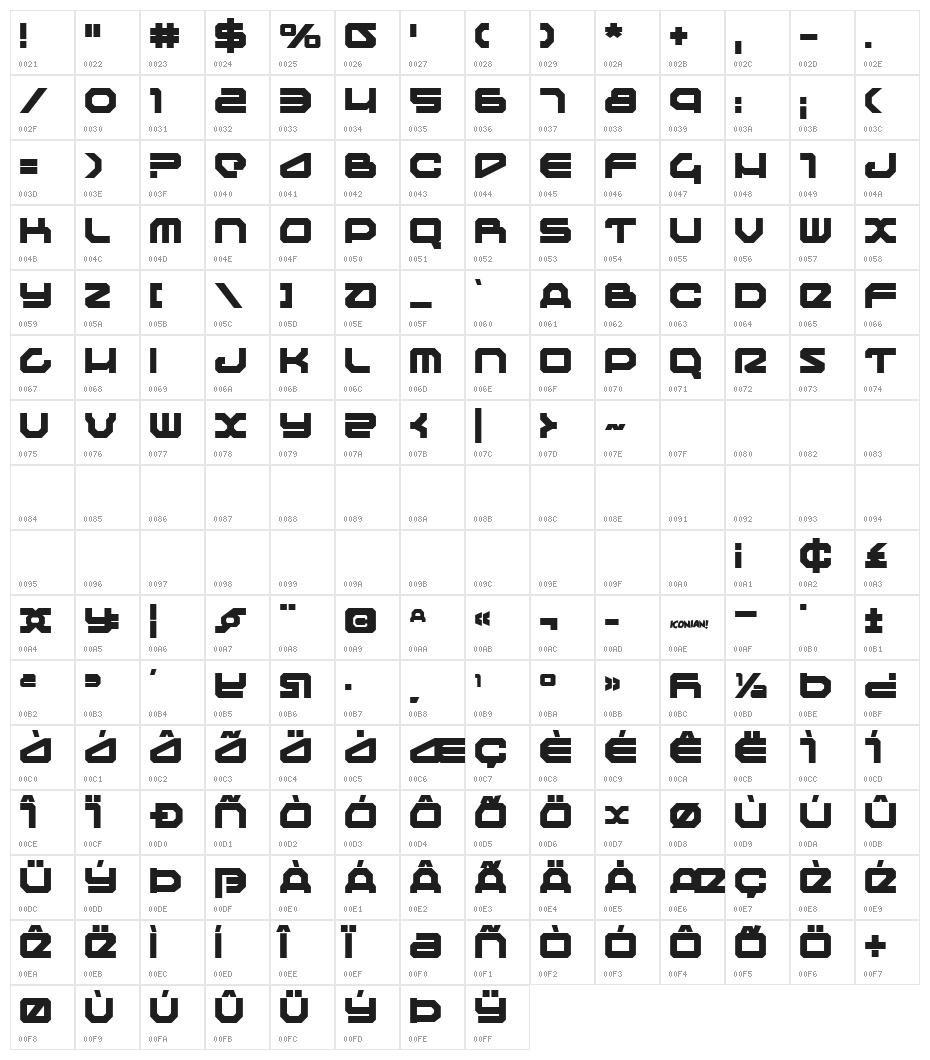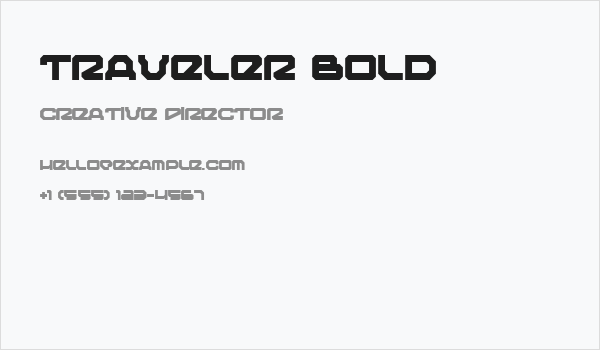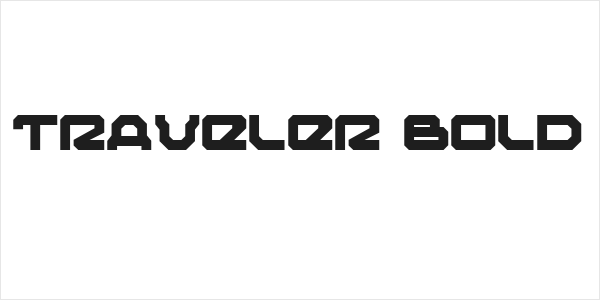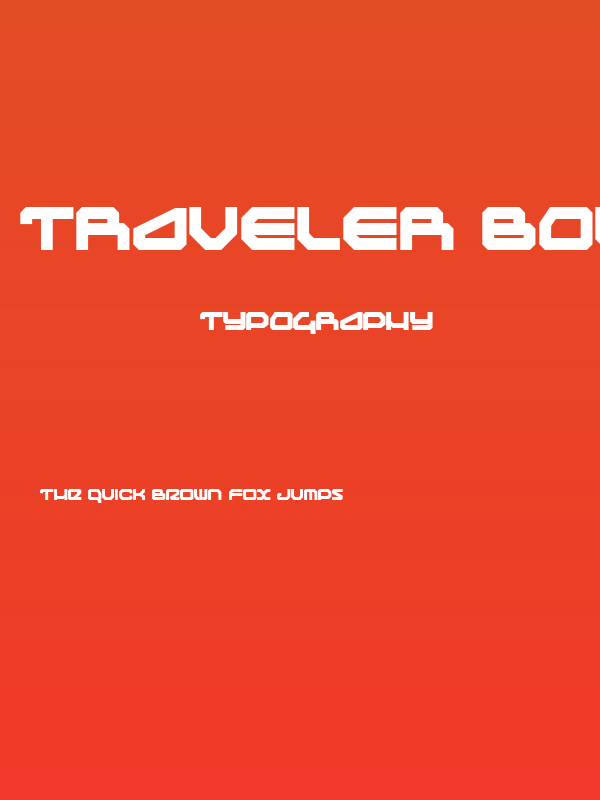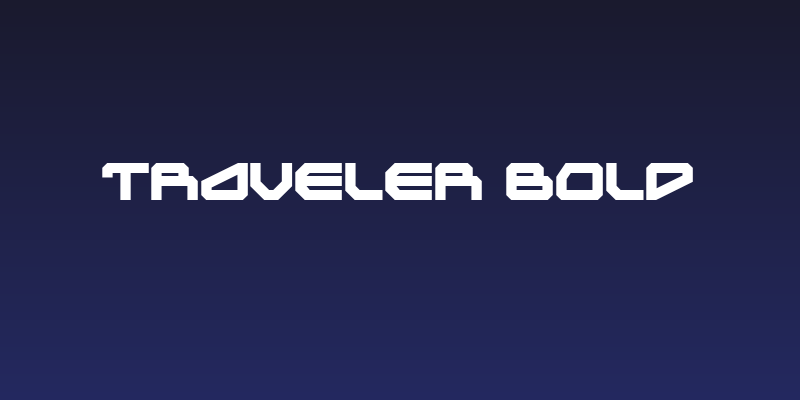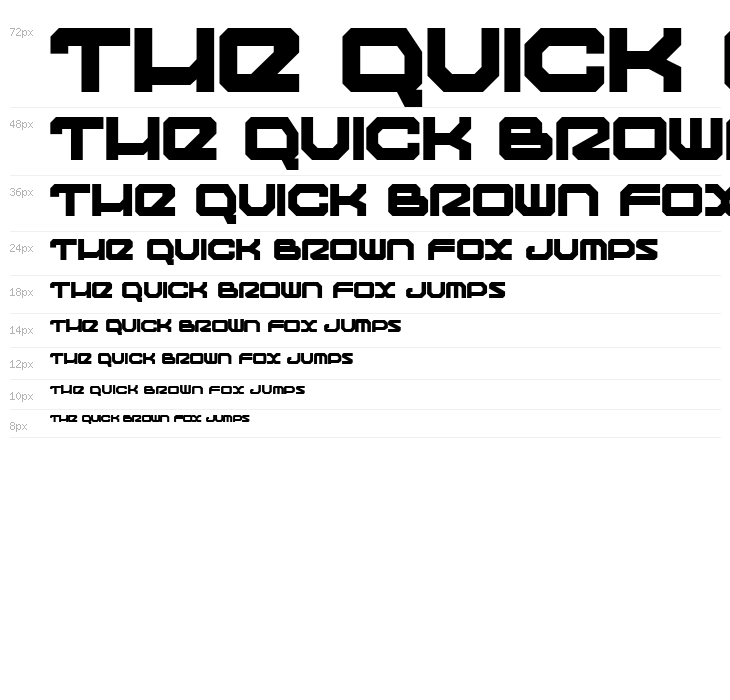
Traveler Bold Font
Traveler Bold Description
This font features a bold, geometric design with a futuristic aesthetic. The characters are constructed with sharp angles and straight lines, creating a sense of precision and modernity. The uppercase and lowercase letters maintain a consistent style, emphasizing uniformity and structure. Numbers and special characters are designed with the same angular approach, ensuring a cohesive look across all glyphs. The font's boldness and unique style make it stand out, making it suitable for attention-grabbing designs.
| Proposed Projects | Ideal for sci-fi themed projects, technology branding, video game titles, and modern poster designs. |